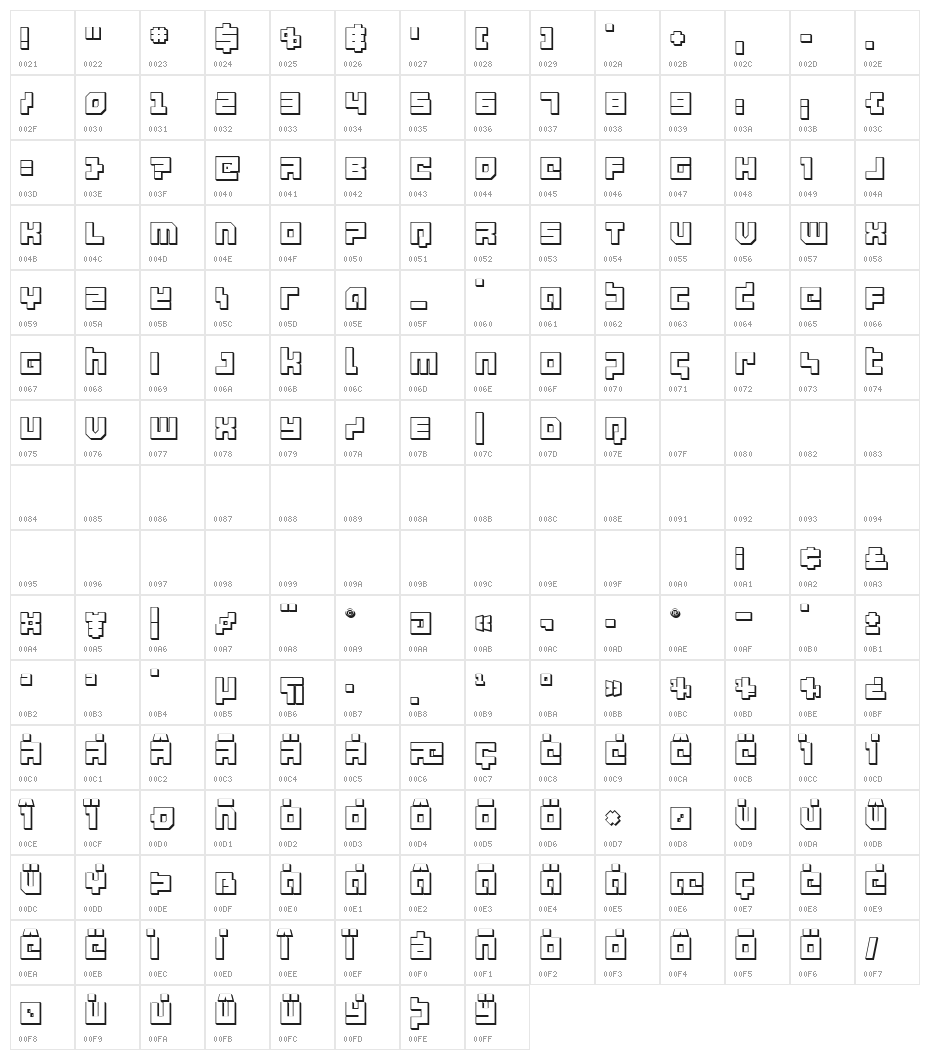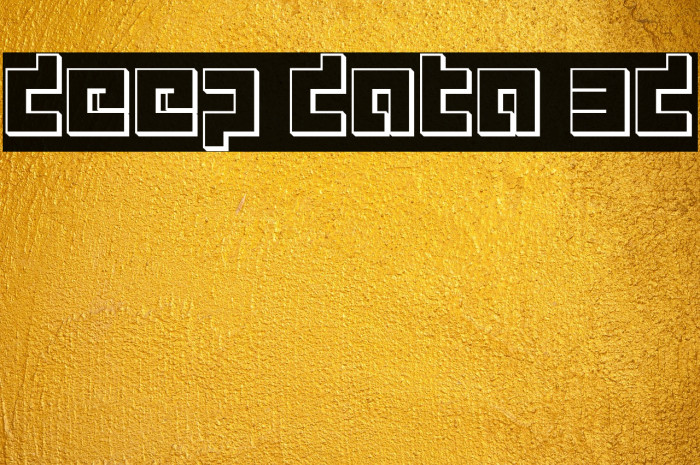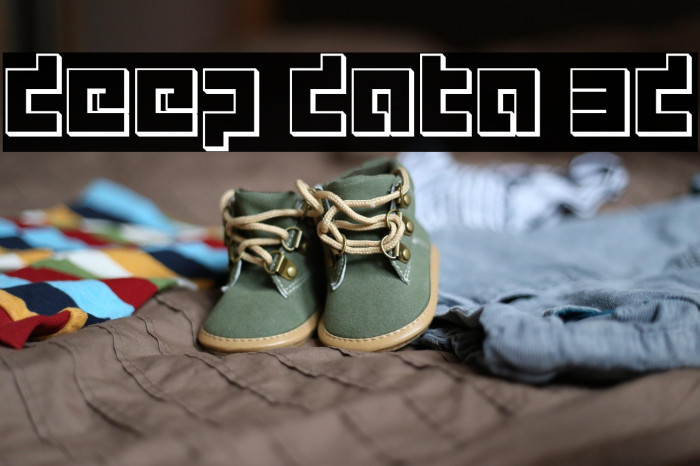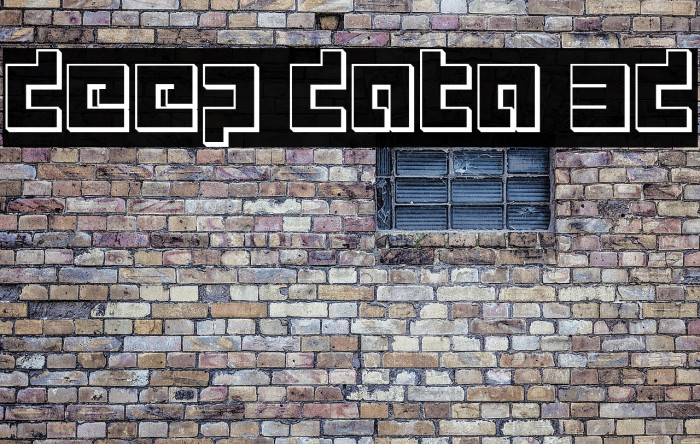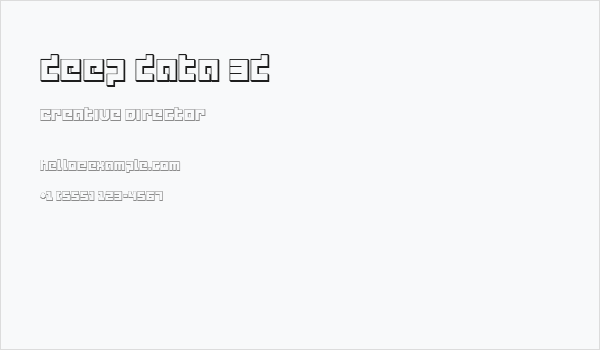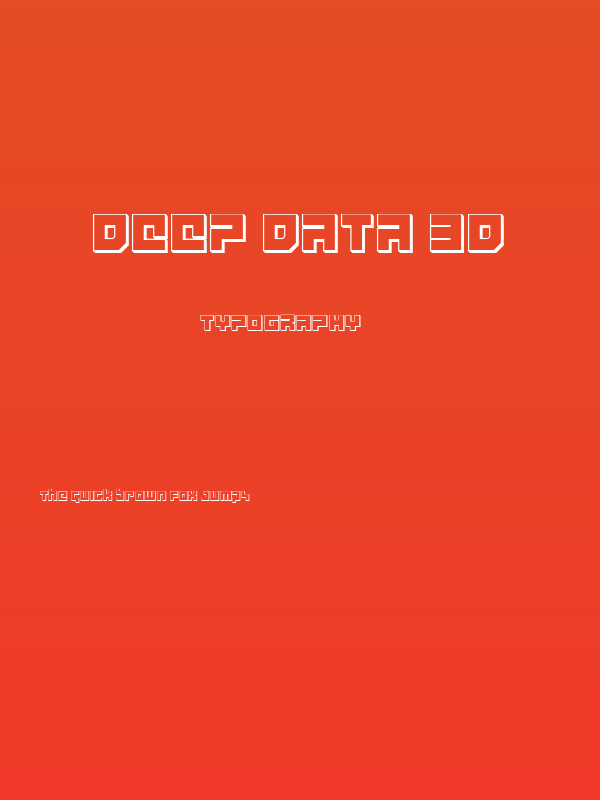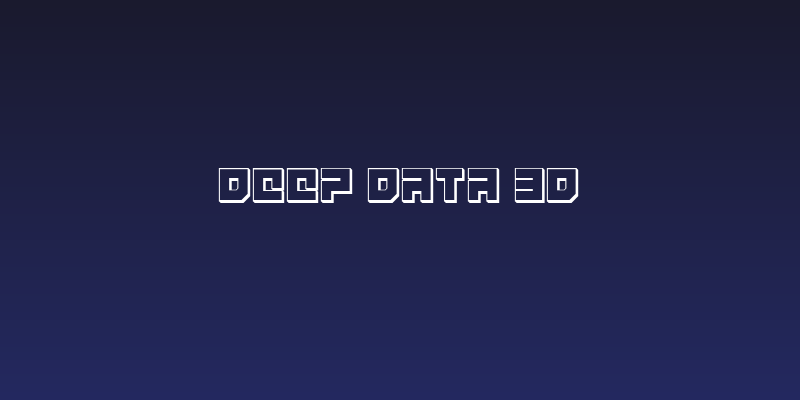
deep data 3d Font
deep data 3d Description
This font features a bold, geometric design with a three-dimensional effect that gives each character a distinct, blocky appearance. The letters are outlined, creating a sense of depth and structure. The style is reminiscent of digital or futuristic themes, making it ideal for projects that require a modern and tech-savvy look. The characters are uniformly spaced, with a consistent width that enhances readability while maintaining a unique aesthetic. The font includes a full set of uppercase and lowercase letters, numbers, and a variety of special characters, all designed with the same bold, outlined style.
| Proposed Projects | Ideal for tech-related branding, digital artwork, video game titles, and futuristic posters. |